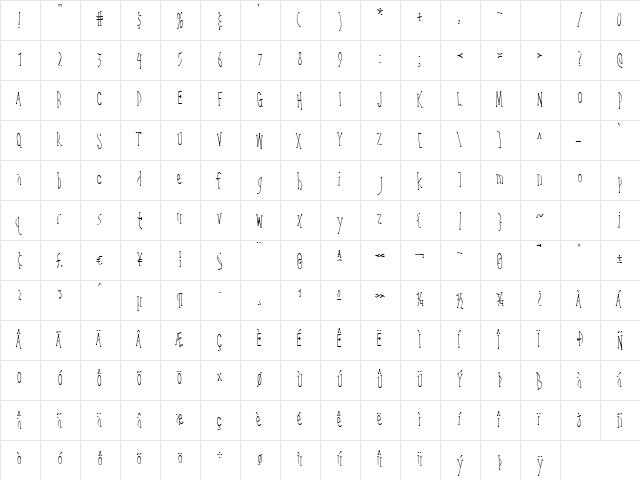
JokerWild AOE Regular
Design Context for JokerWild AOE Typeface
JokerWild AOE is a composed and adaptable typeface that performs quietly and consistently across a wide range of design contexts.
Pro Tip: Use JokerWild AOE in both headline and body roles to test its range before committing to a single application.